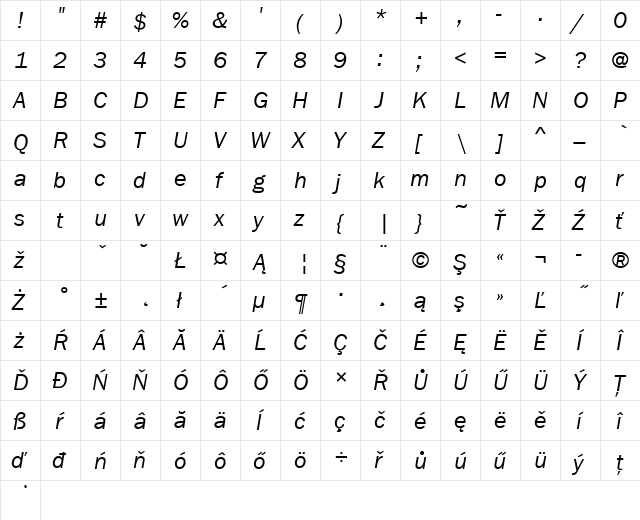
FranklinGotItcTEEBoo Italic Font Preview
FranklinGotItcTEEBoo Italic
FranklinGotItcTEEBoo Italic Font Details
Design Context for FranklinGotItcTEEBoo Typeface
FranklinGotItcTEEBoo takes a measured approach to typography — its balanced proportions and neutral character make it a reliable workhorse for both digital and print work. The slanted form adds forward momentum and visual energy.
Pro Tip: Try FranklinGotItcTEEBoo for annotation and caption copy alongside an upright companion — the contrast in angle creates a dynamic but ordered typographic system.